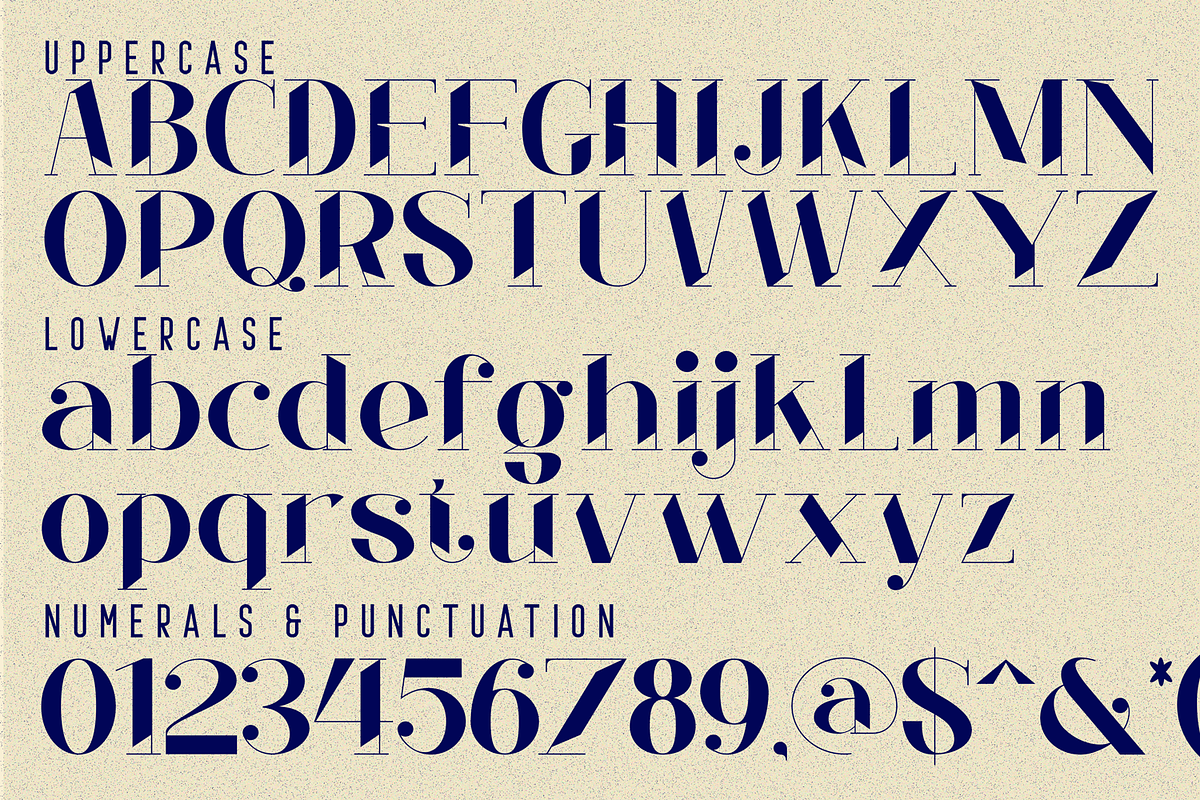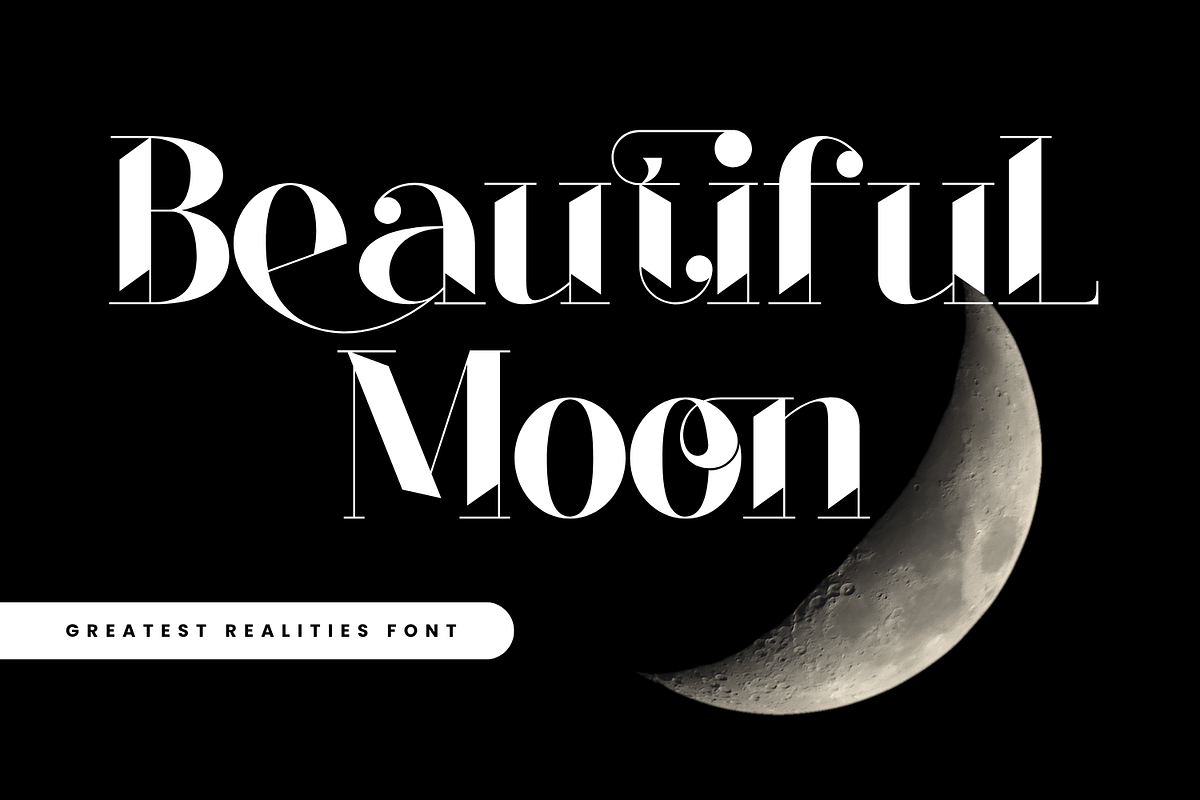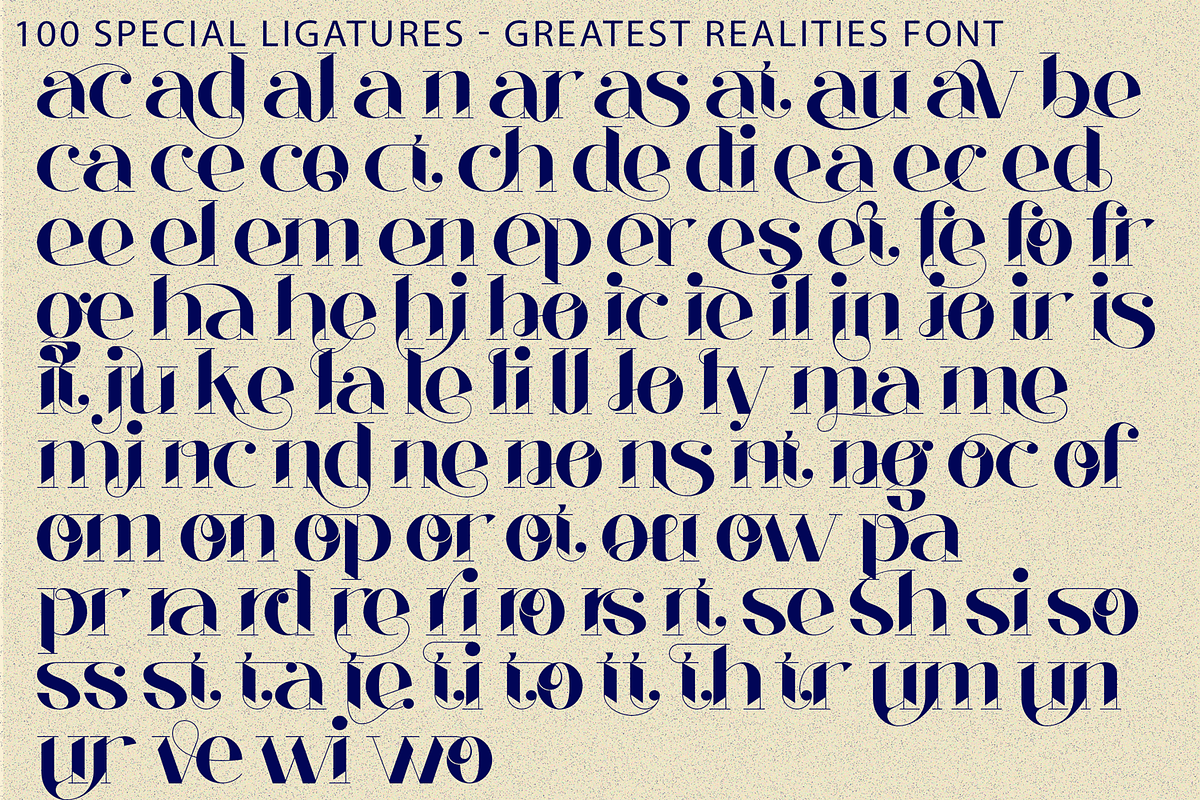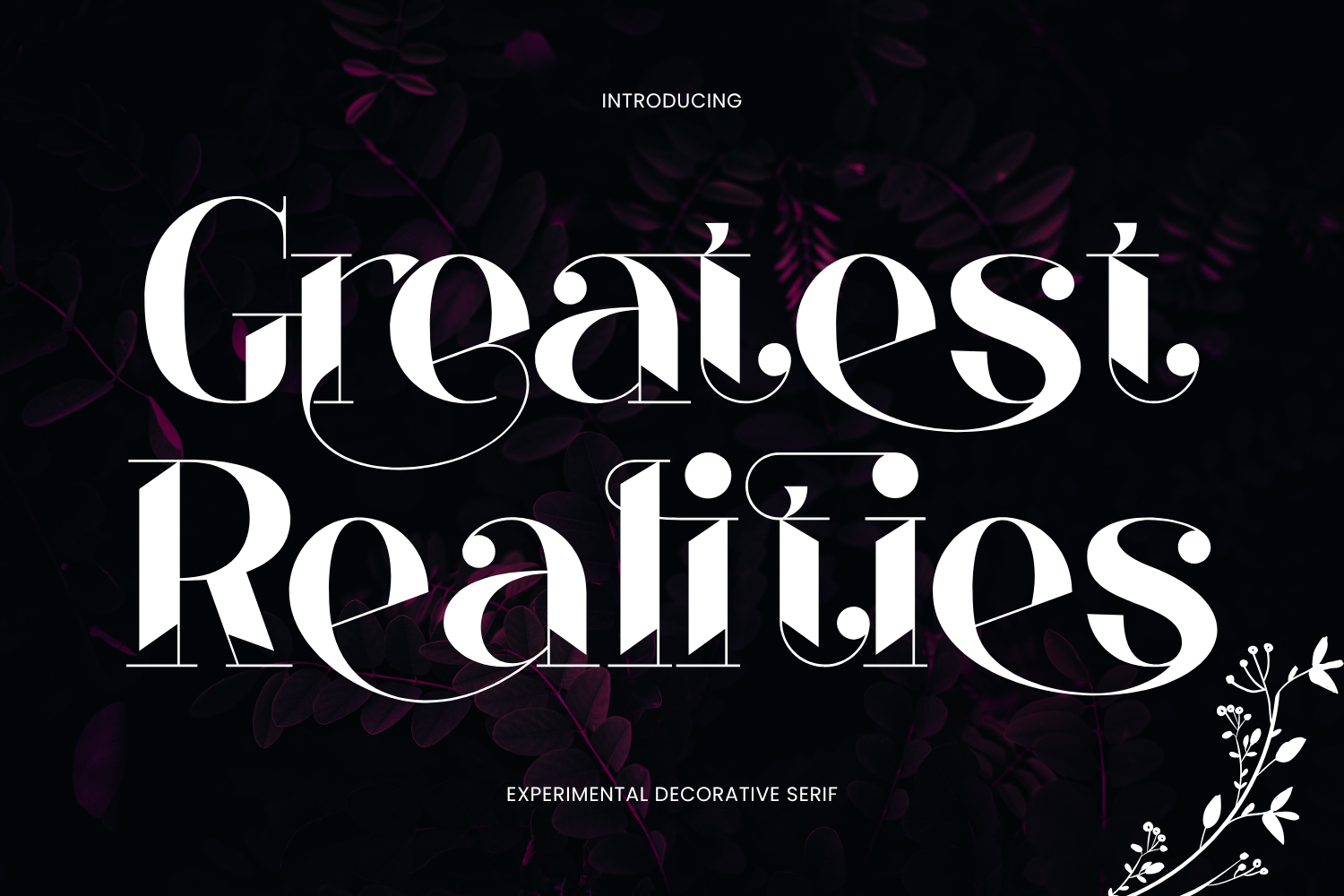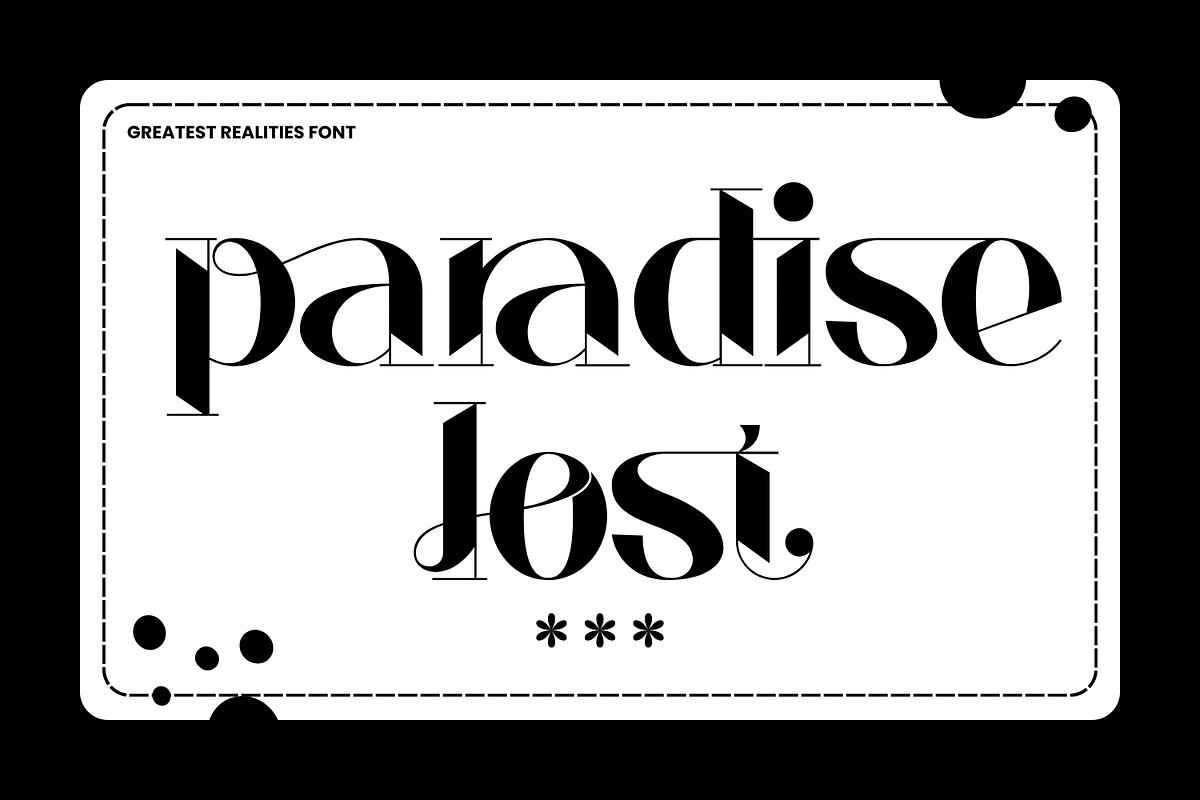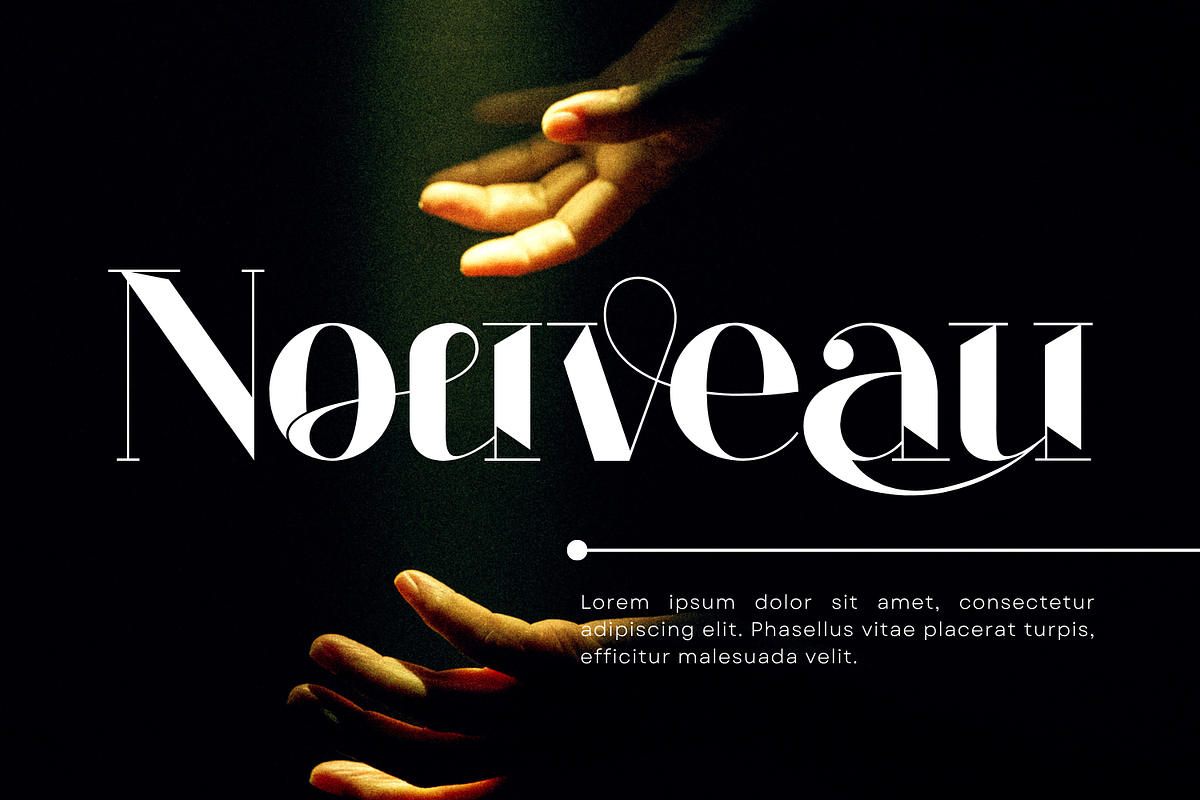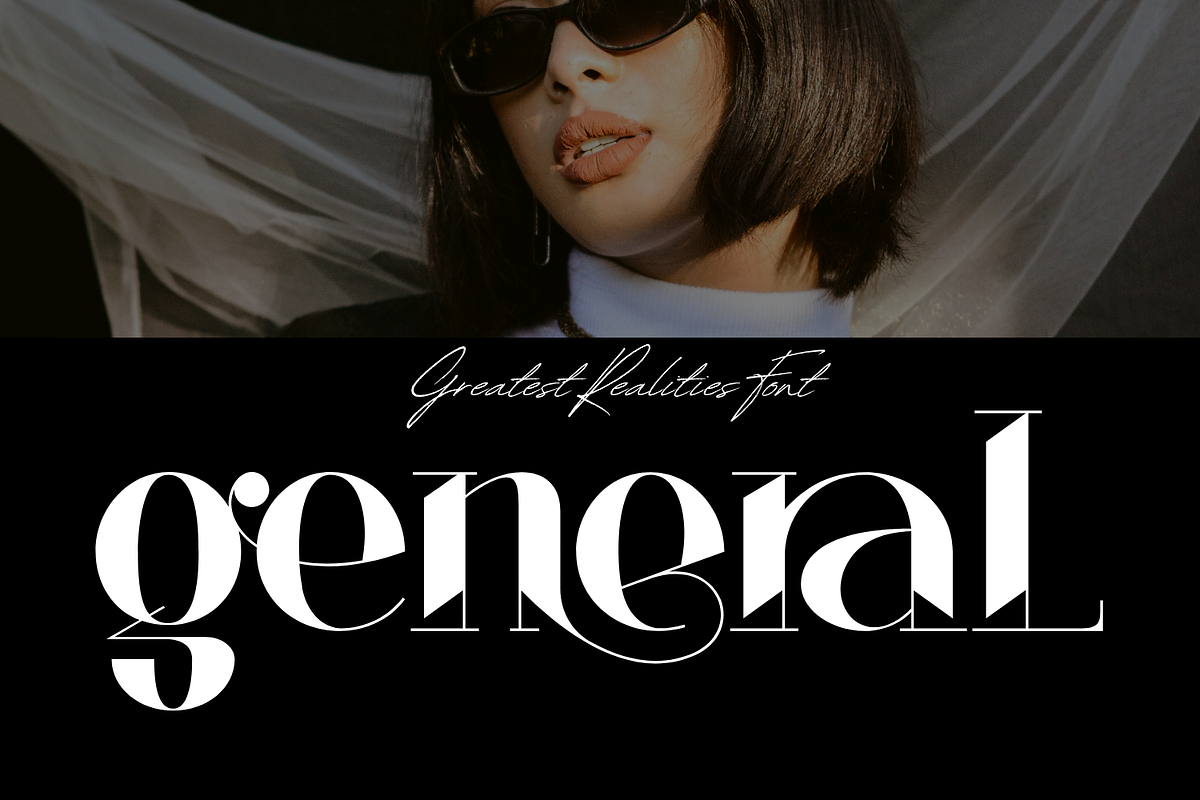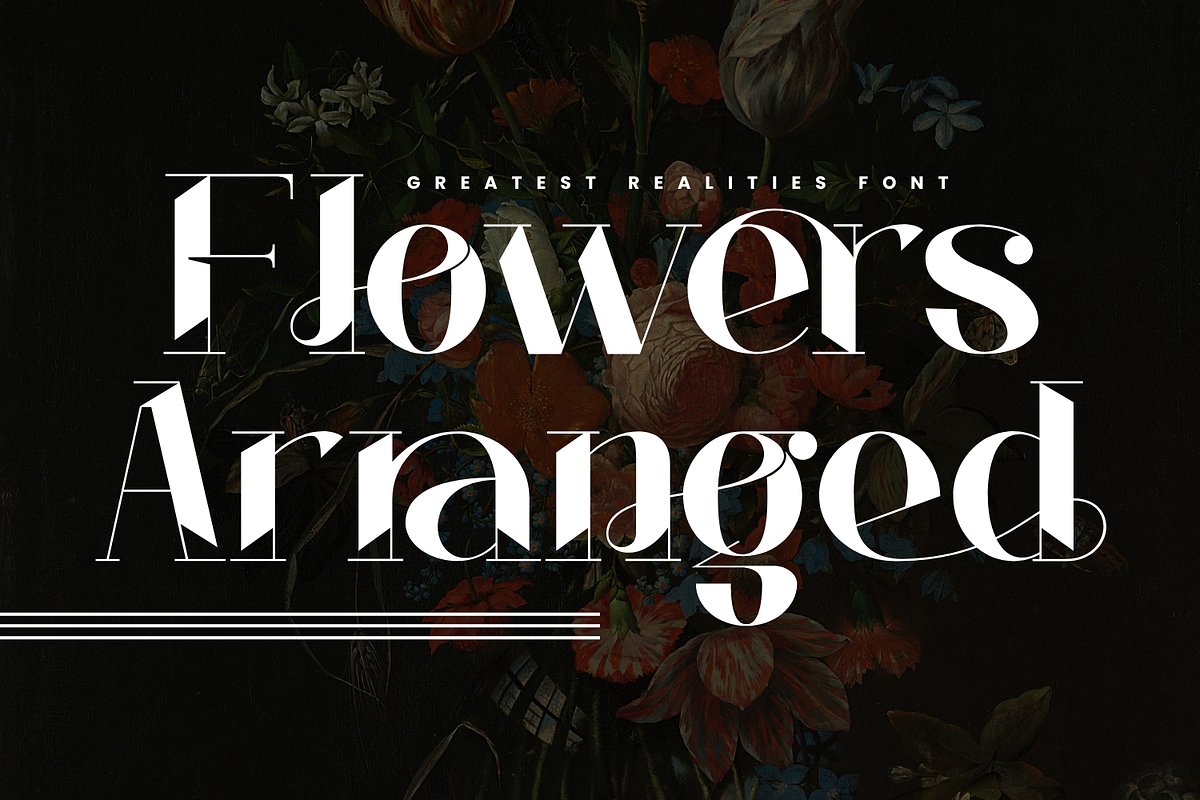
Greatest Realities - Modern Font
Greatest Realities - Modern Serif Font is an elegant modern serif display font crafted to bring sophistication, beauty, and timeless luxury to your designs. Featuring dramatic high-contrast strokes, delicate hairline details, and graceful ball terminals, this typeface creates a refined visual presence that feels both contemporary and classic. Its flowing curves and decorative letterforms add a touch of romance and artistic expression, while the carefully balanced proportions ensure exceptional readability and visual harmony. Inspired by luxury fashion editorials and premium branding, Greatest Realities delivers a distinctive personality that effortlessly stands out in high-end design projects.
🔤Features:
Uppercase & Lowercase Letters
Around 100 Special Ligatures & Alternates
Accented Characters for multilingual support
🔤About 100 ligatures combined with Stylistic Alternates Font:
ac ad al an ar as at au av be ca ce ch co ct de di ea ec ed ee el em en ep er es et fe fo fr ge ha he hi ho ie ic il in io ir is it ju ke la le li ll lo ly ma me mi nc nd ne ng no nt ns oc of om on oo op or ot ou ow pa pr ra rd re ri ro rs rt se sh si so ss st ta te th ti to tr tt um un ur ve wi wo